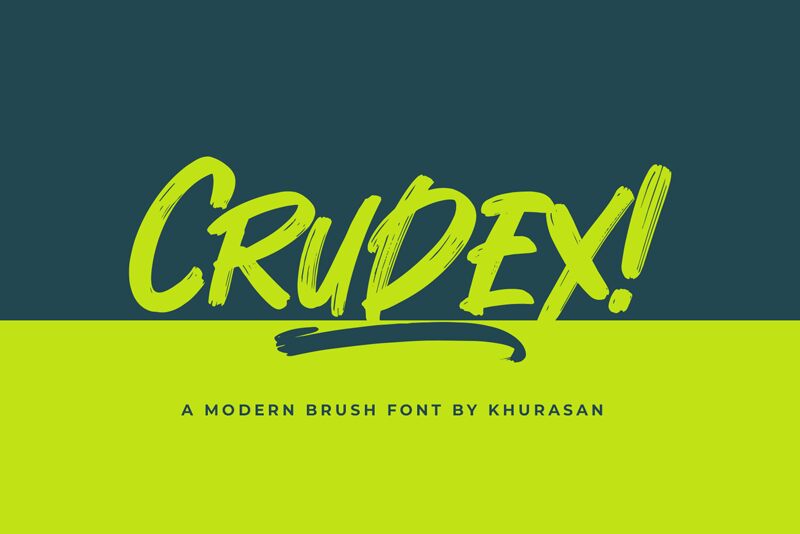
Experience the bold and contemporary brush strokes of Crudex, a modern semi-bold font by Khurasan. Perfect for projects that demand a touch of sophistication and creativity, Crudex effortlessly captures attention with its unique style.
Whether it's designing eye-catching logos, crafting stunning headlines, or adding an artistic flair to your social media posts, this font will elevate your work to new heights. Let Crudex leave a lasting impression on your next branding project, website design, or advertising campaign. Unleash your imagination and embrace the versatility of this captivating typeface.
Crudex